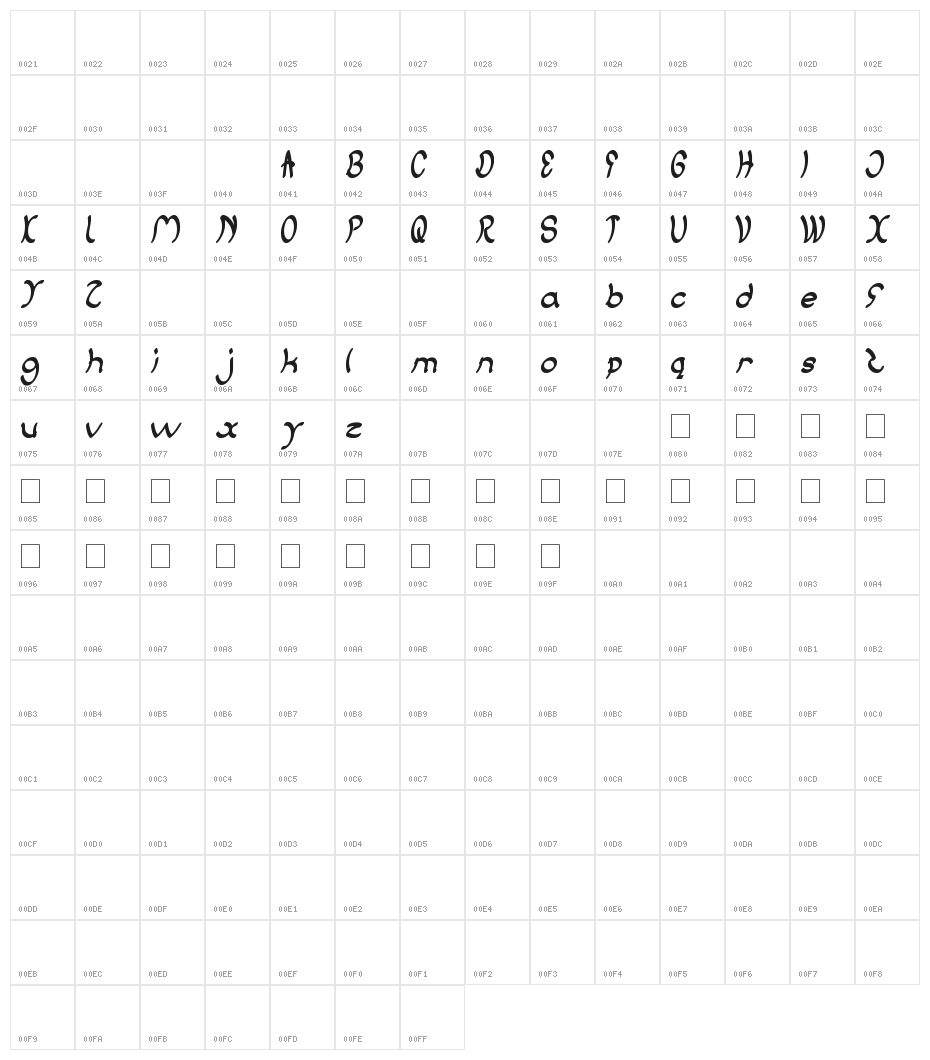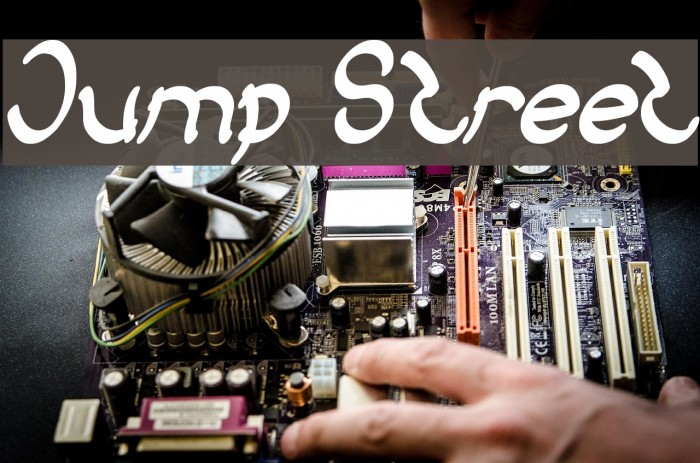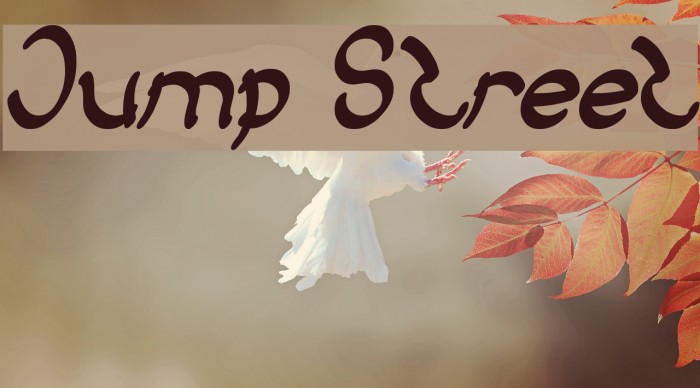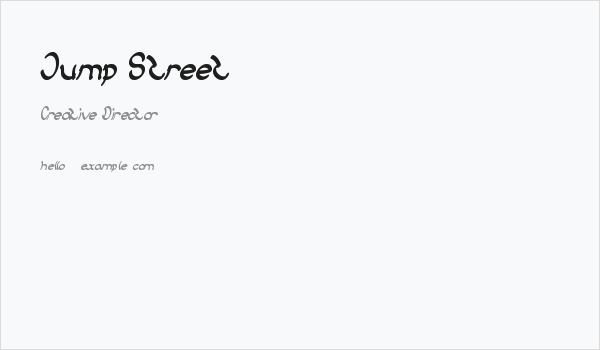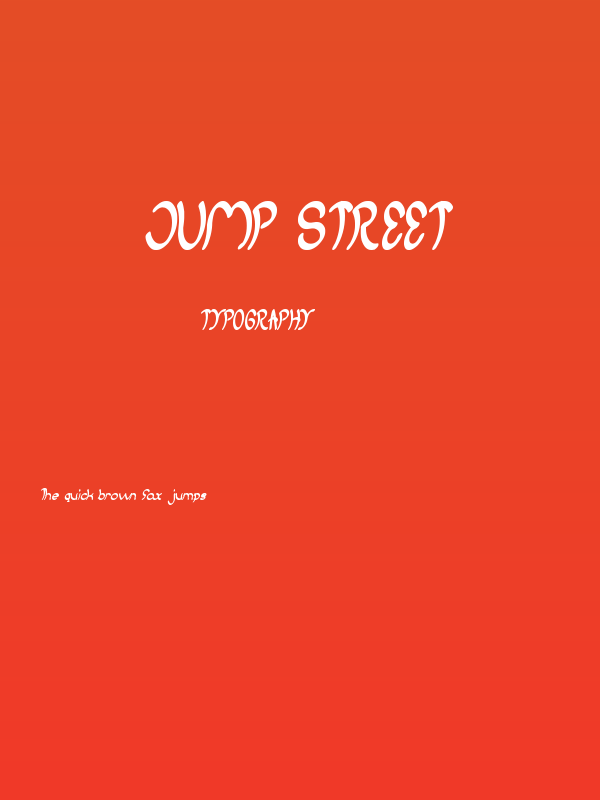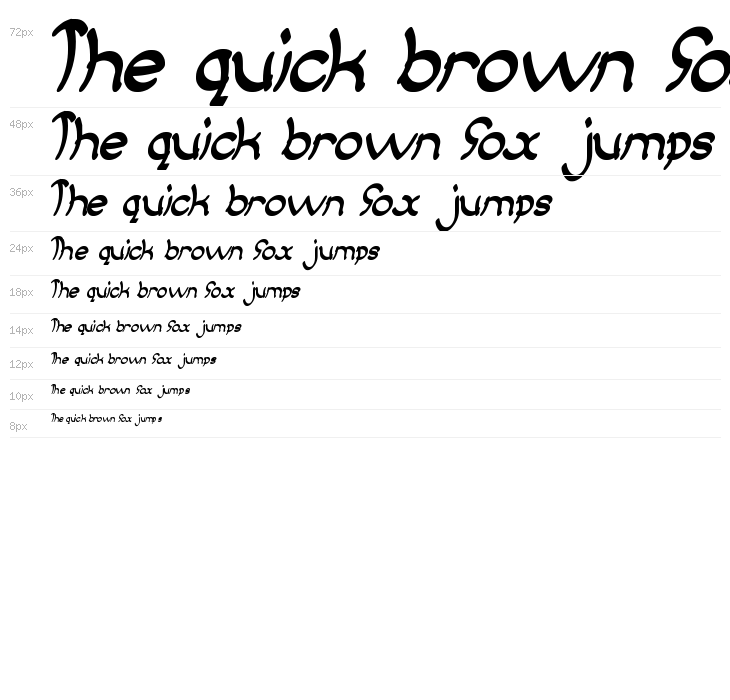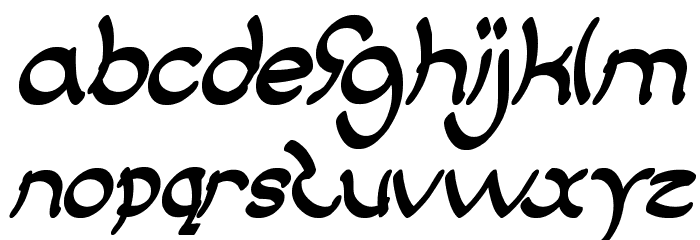
Jump Street Font
Jump Street Description
This font features a unique and playful design with a hand-drawn aesthetic. The characters are bold and have a whimsical, curvy style that gives them a lively and energetic appearance. The uppercase letters are particularly distinctive, with exaggerated curves and loops that create a sense of movement. The lowercase letters maintain this playful style, with some characters featuring unexpected twists and turns. The numbers and special characters are consistent with the overall design, adding to the font's cohesive look. This font is ideal for projects that require a fun and informal touch.